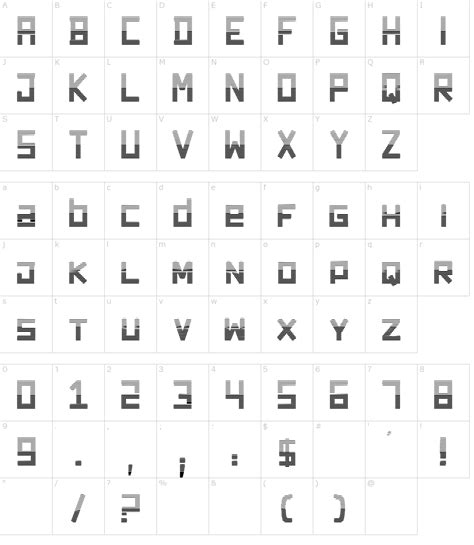
Web dark forest font is a sans serif family that comes in 5 weights. Web download and install the dark forest font by dcoxy. Web browse and download 15 free fonts that capture the beauty and complexity of the woods. A license is required for any commercial.